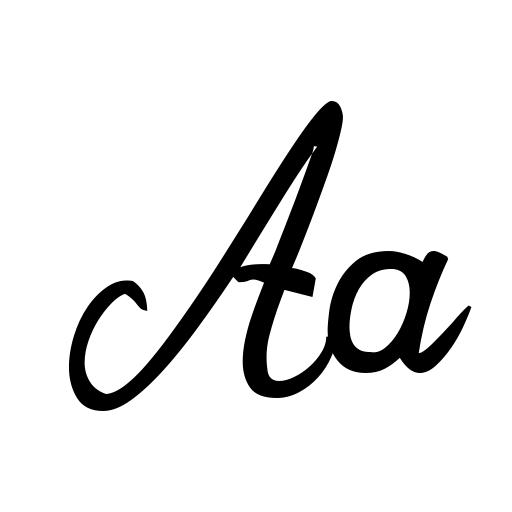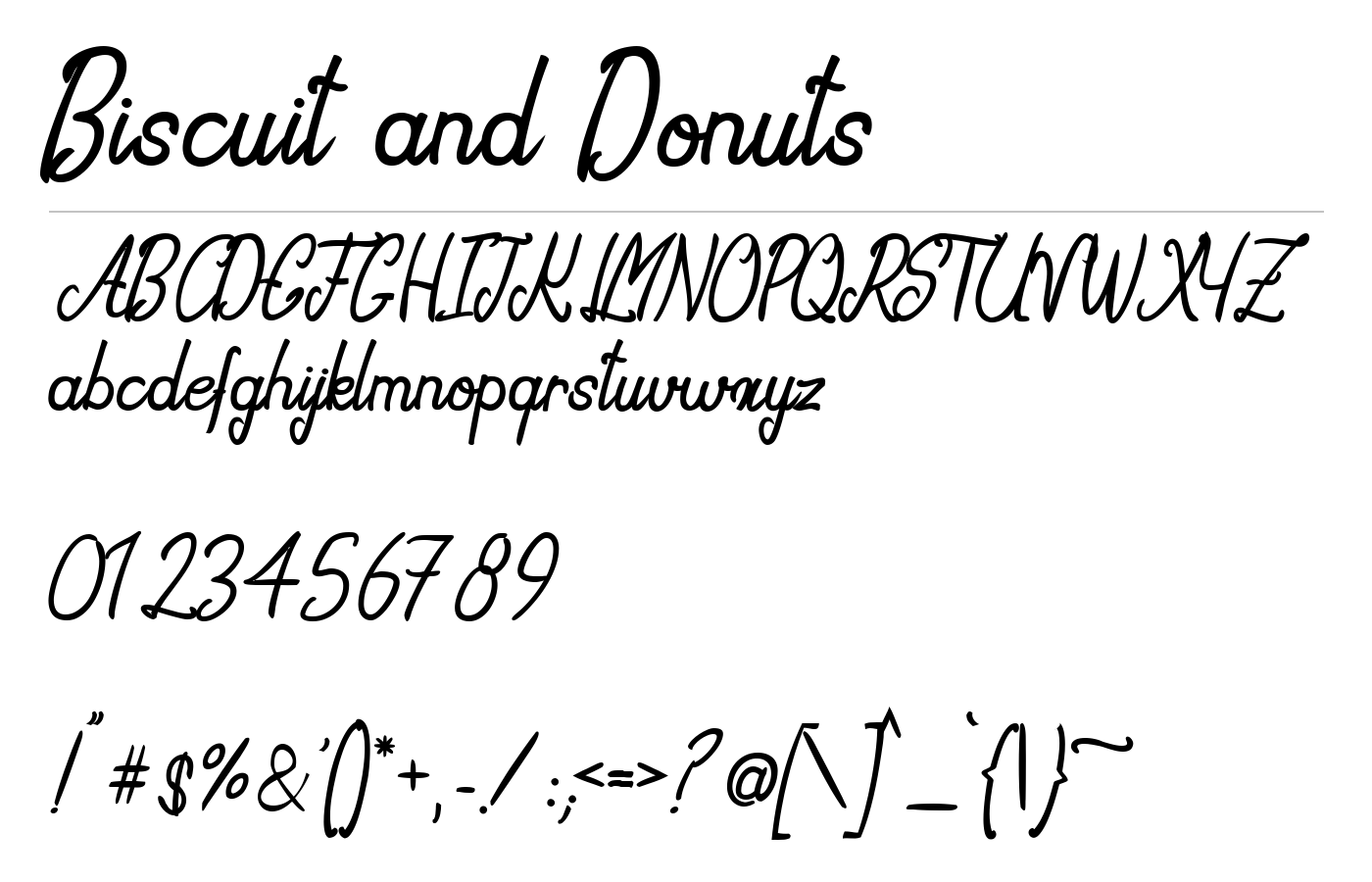
Biscuit and Donuts is a playful, handwritten script font with a casual and friendly vibe. Its tall, slightly narrow letterforms with smooth, flowing strokes and subtle loops give it an inviting, approachable feel, making it ideal for branding, invitations, and fun, informal designs. This font works well where a personal touch is desired, adding warmth and charm to creative projects.
Biscuit and Donuts Font
About Biscuit and Donuts Font
| Font family | Biscuit and Donuts Font |
| Designer | La Matrice |